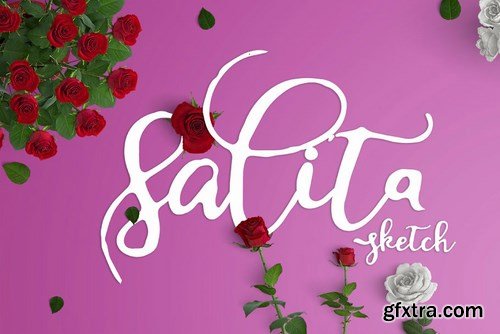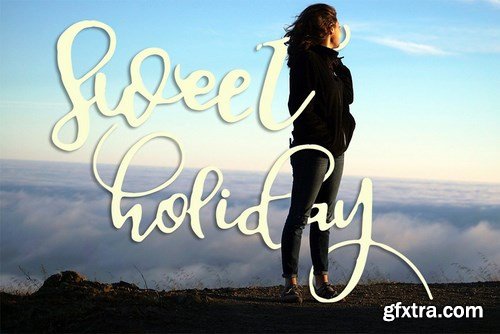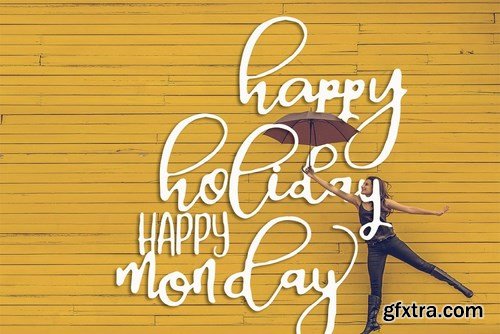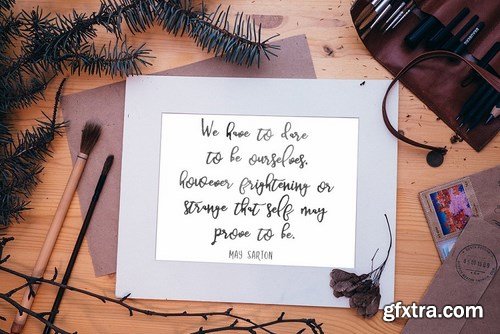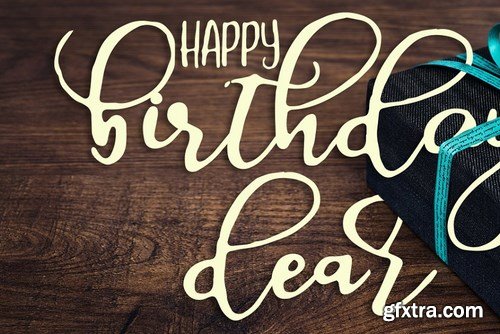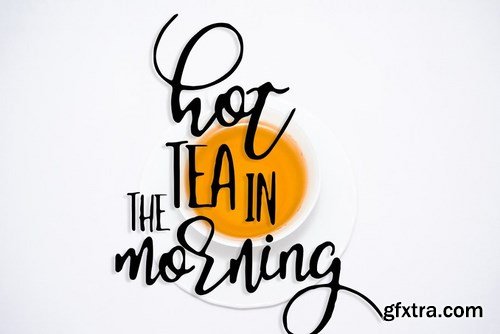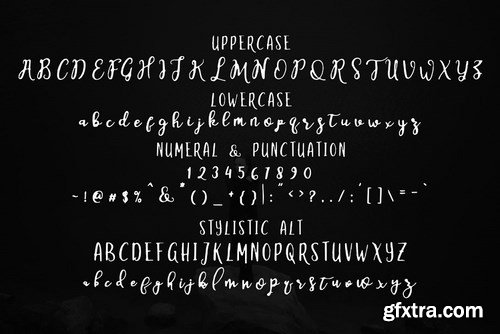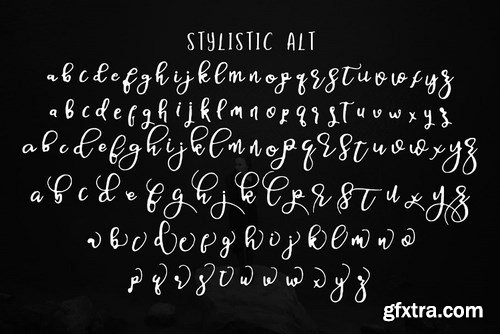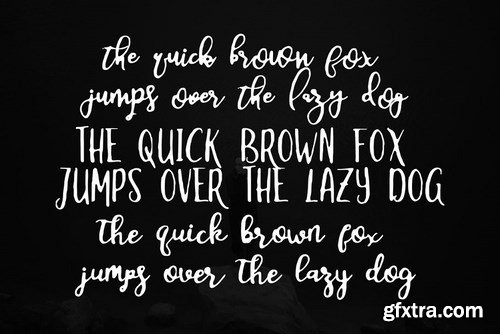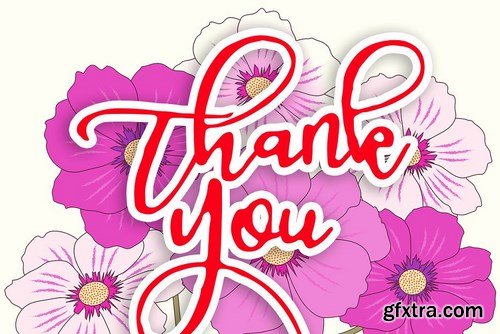
salita sketch a new fresh & modern script with a handmade calligraphy style, decorative characters and a dancing baseline! So beautiful on invitation like greeting cards, branding materials, business cards, quotes, posters, and more!!
salita sketch come with 340+ glyphs. The alternative characters were divided into several Open Type features such as Swash, Stylistic Sets, Stylistic Alternates. The Open Type features can be accessed by using Open Type savvy programs such as Adobe Illustrator, Adobe InDesign, Adobe Photoshop Corel Draw X version, And Microsoft Word. And this Font has given PUA unicode (specially coded fonts). so that all the alternate characters can easily be accessed in full by a craftsman or designer. salita sketch : Uppercase & Lowercase International Languange & Symbols Support Punctuation & Number PUA Unicode Range Standard Stylistic Alternates Stylistic Set 1-12 Character. The ZIP file are include the following : salita sketch.OTF salita sketch.TTF salita sketch Web Font (eot, svg, woff, woff2) If you don't have a program that supports OpenType features such as Adobe Illustrator and CorelDraw X Versions, you can access all the alternate glyphs using Font Book (Mac) or Character Map (Windows).